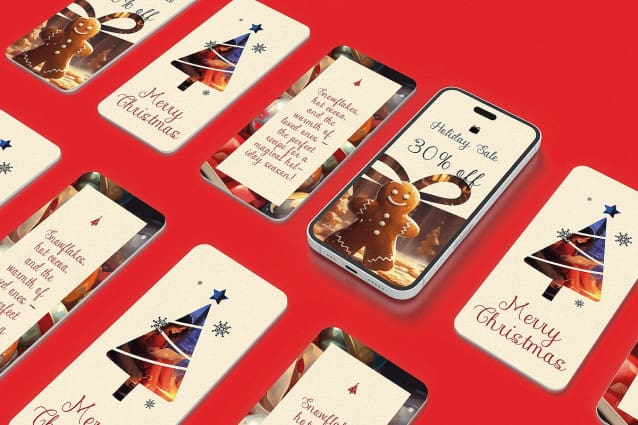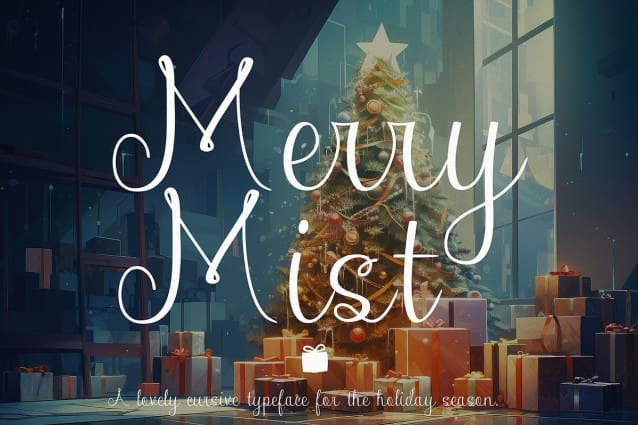
Merry Mist Font
Merry Mist Font, Embrace the joy and wonder of the holiday season with Merry Mist, a typeface that beautifully captures the essence of Christmas in every letter. This enchanting serif font is inspired by the warmth and cheer of the festive period, making it the perfect choice for creating designs that spread holiday spirit. It  is not just a font; it’s a celebration of all things merry and bright, crafted to bring the magic of Christmas to your typography.
Merry Mist’s design harmoniously blends classic serif elegance with playful, festive elements. Its characters are adorned with subtle hints of Christmas cheer, from gentle curves reminiscent of snowy hills to delicate serifs that evoke the twinkle of Christmas lights. Each letter is a gift of design, carefully wrapped in the joy of the season. Whether you’re designing heartwarming holiday cards, festive event invitations, seasonal marketing materials, or eye-catching window displays, Merry Mist adds a touch of whimsy and a dash of nostalgia.
With Merry Mist, your holiday projects will resonate with the charm and warmth of a cozy Christmas evening. Its timeless appeal ensures your designs will remain fresh and joyful year after year, making it an invaluable addition to your festive design toolkit. Let Merry Mist fill your designs with the merry magic of Christmas and watch as they become a cherished part of your audience’s holiday celebrations.